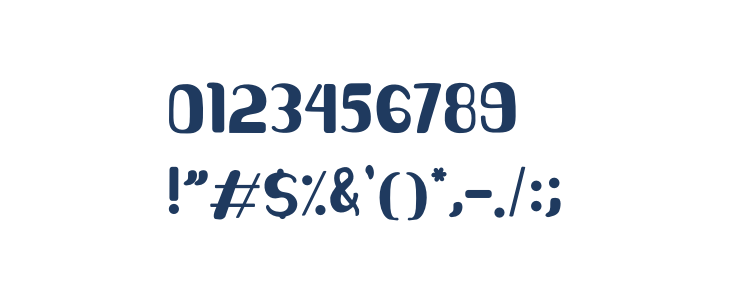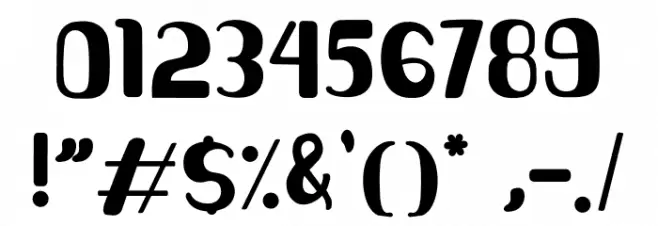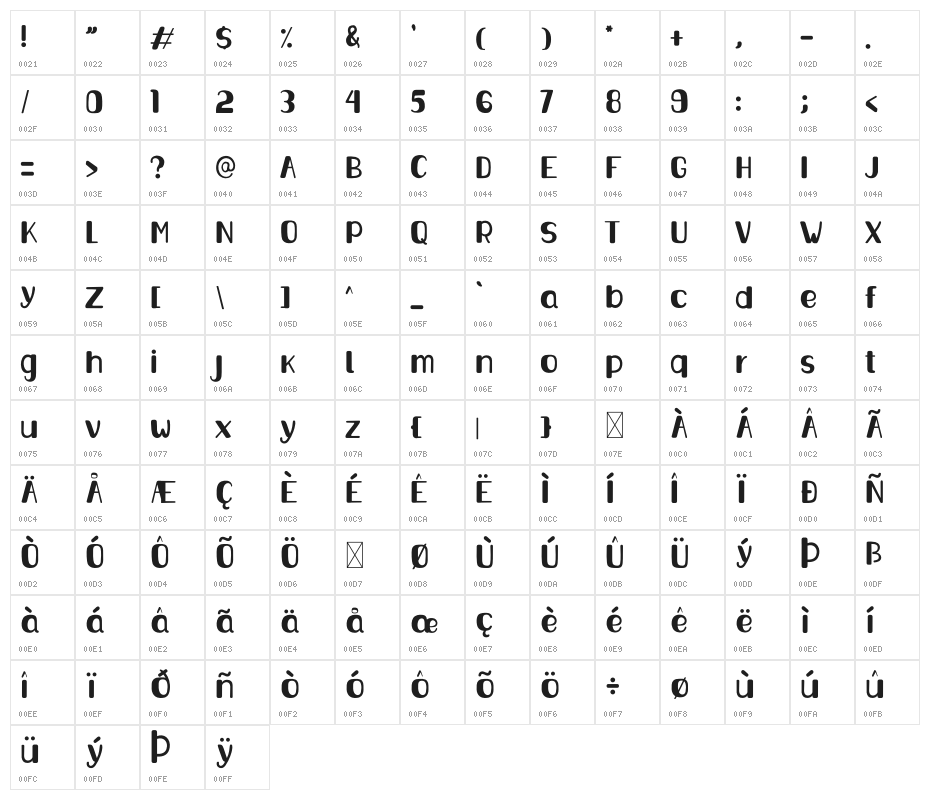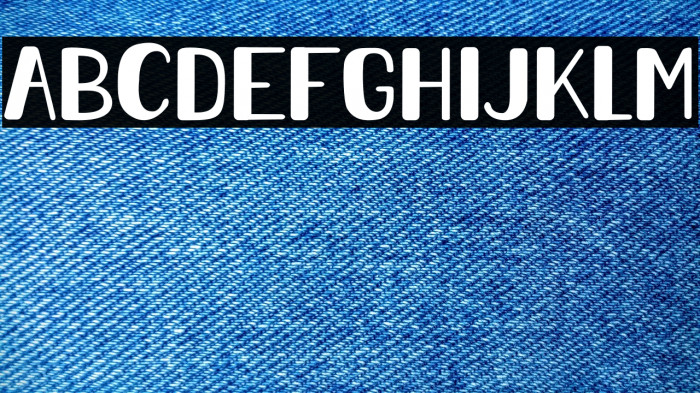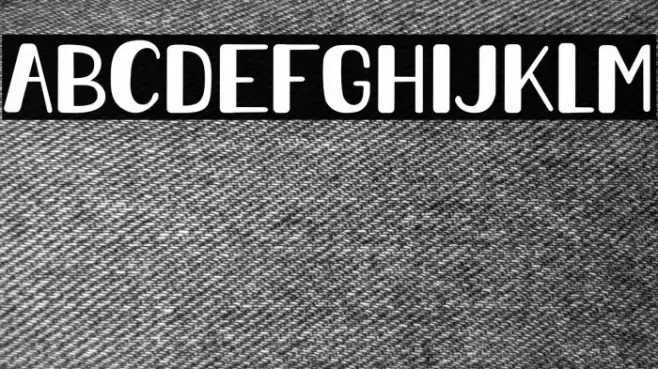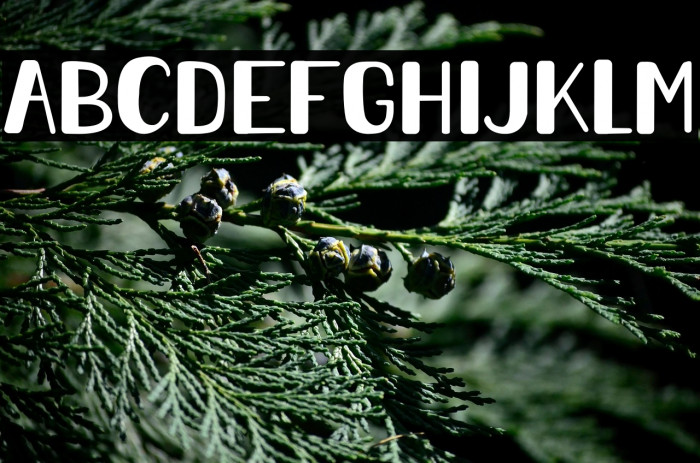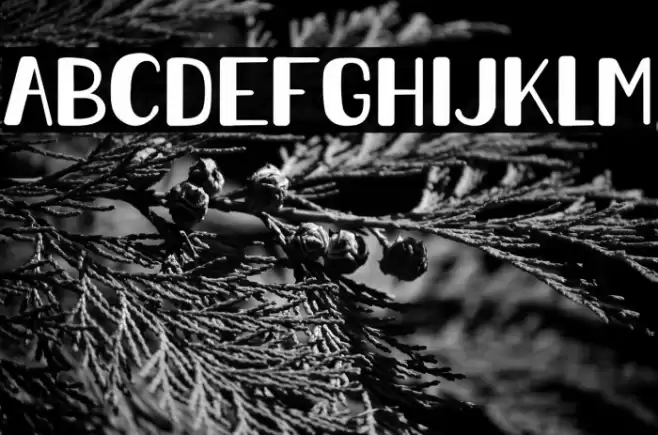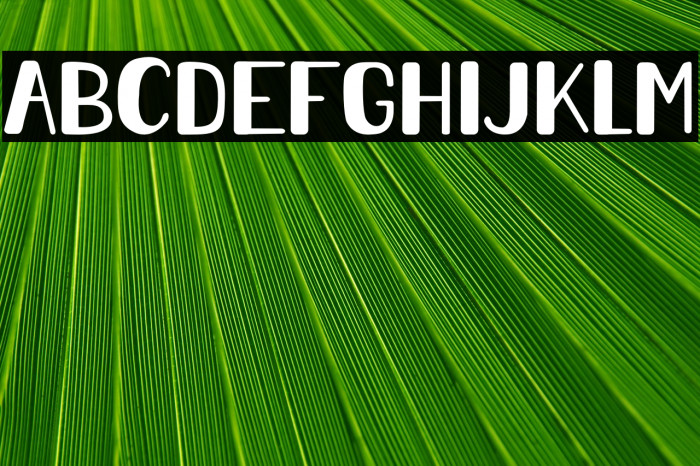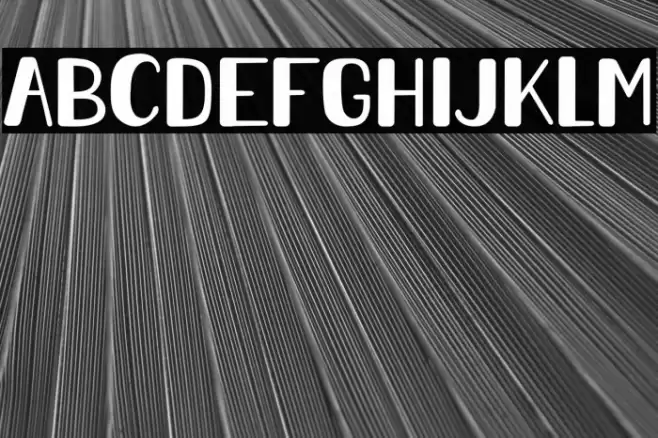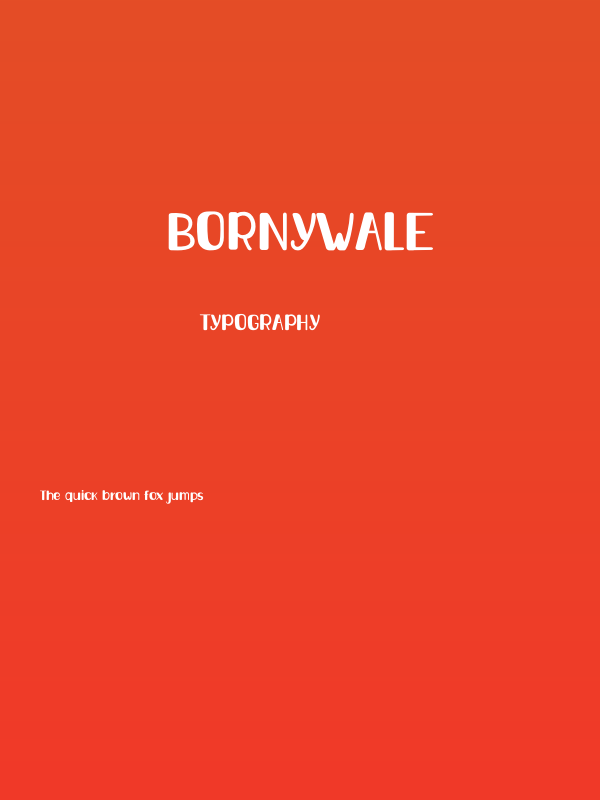
Bornywale Font
Bornywale Description
This font features a playful and bold design, characterized by its rounded edges and slightly condensed letterforms. The uppercase letters are uniform in height, while the lowercase letters maintain a consistent baseline, providing a harmonious flow. The numerals are distinct and easily readable, complementing the overall style. Special characters are designed with the same playful aesthetic, making them suitable for a variety of creative applications. The font's unique style is both modern and approachable, making it ideal for projects that require a friendly and engaging appearance.
| Overall Style | Modern, Playful |
| Proposed Projects | Ideal for children's books, playful branding, posters, and social media graphics. |